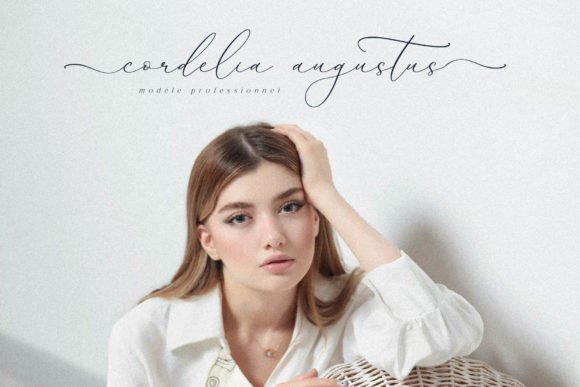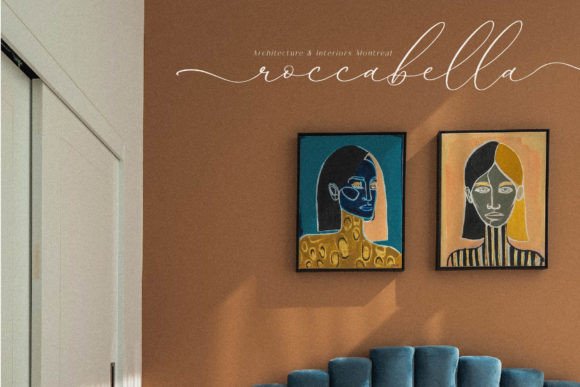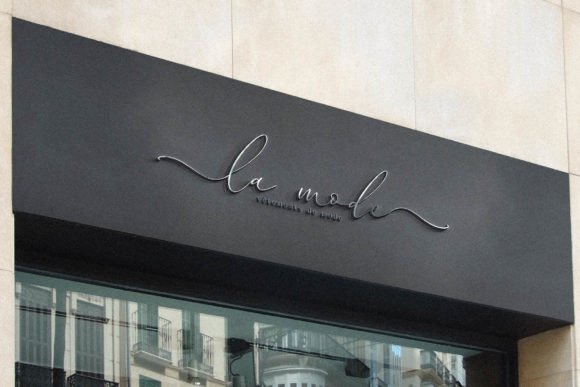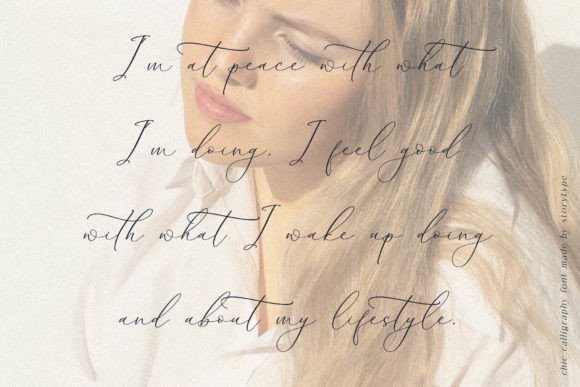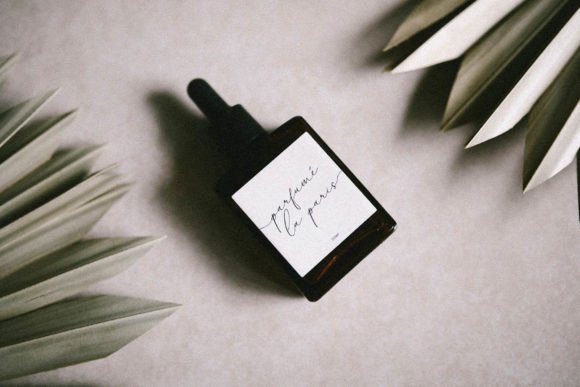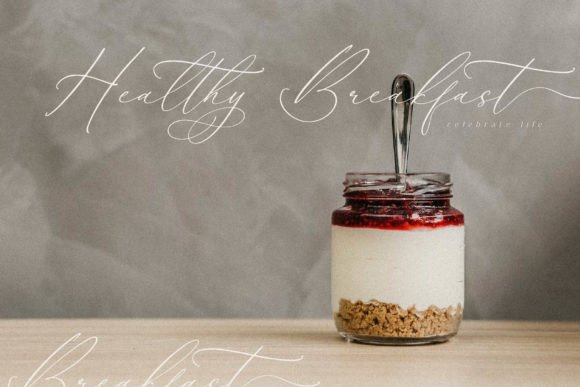
Introducing Authentiue Font: Elevate Your Designs with Stylish Calligraphy
In the world of design, typography plays a crucial role in conveying messages, expressing creativity, and capturing attention. For designers, crafters, and creatives, having access to a diverse library of high-quality fonts is essential. This is where Authentiue Font comes in – a stylish and chic calligraphy script font that can instantly elevate your designs and take them to the next level.
The Power of Calligraphy Fonts
Calligraphy fonts have been a staple in design for centuries, and their popularity endures. These fonts add a touch of elegance, sophistication, and personality to any project. Whether you’re working on a logo, branding materials, invitations, or social media graphics, a well-chosen calligraphy font can make all the difference. Authentiue Font is designed to help you achieve that wow factor, with its unique blend of style, flair, and versatility.
What Makes Authentiue Font Special?
Authentiue Font is more than just a beautiful calligraphy script font – it’s an asset that can transform your designs. Here are some key features that make Authentiue Font stand out:
- Stylish and Chic: Authentiue Font boasts a stylish and chic aesthetic that’s perfect for designs that require a touch of sophistication.
- Versatile: This font is incredibly versatile and can be used on a wide range of projects, from logos and branding materials to invitations and social media graphics.
- Easy to Read: Despite its ornate appearance, Authentiue Font is easy to read, making it perfect for body text and headlines.
- High-Quality: Authentiue Font is a high-quality font that’s designed to deliver exceptional results, even at small sizes.
Use Cases for Authentiue Font
Authentiue Font is an incredibly versatile font that can be used in a variety of contexts. Here are some use cases to get you started:
- Logos and Branding: Use Authentiue Font to create stunning logos, business cards, and branding materials that exude elegance and sophistication.
- Invitations and Events: Add a touch of luxury to your invitations, wedding stationery, and event materials with Authentiue Font.
- Social Media Graphics: Elevate your social media graphics, including Instagram posts, Facebook covers, and Twitter headers, with Authentiue Font.
- Packaging and Product Design: Use Authentiue Font to create eye-catching packaging and product designs that stand out on store shelves.
Tips for Using Authentiue Font
To get the most out of Authentiue Font, here are some tips to keep in mind:
- Pair it with Other Fonts: Combine Authentiue Font with other fonts to create a unique and visually appealing typography scheme.
- Play with Ligatures: Authentiue Font features beautiful ligatures – experiment with them to add a touch of elegance to your designs.